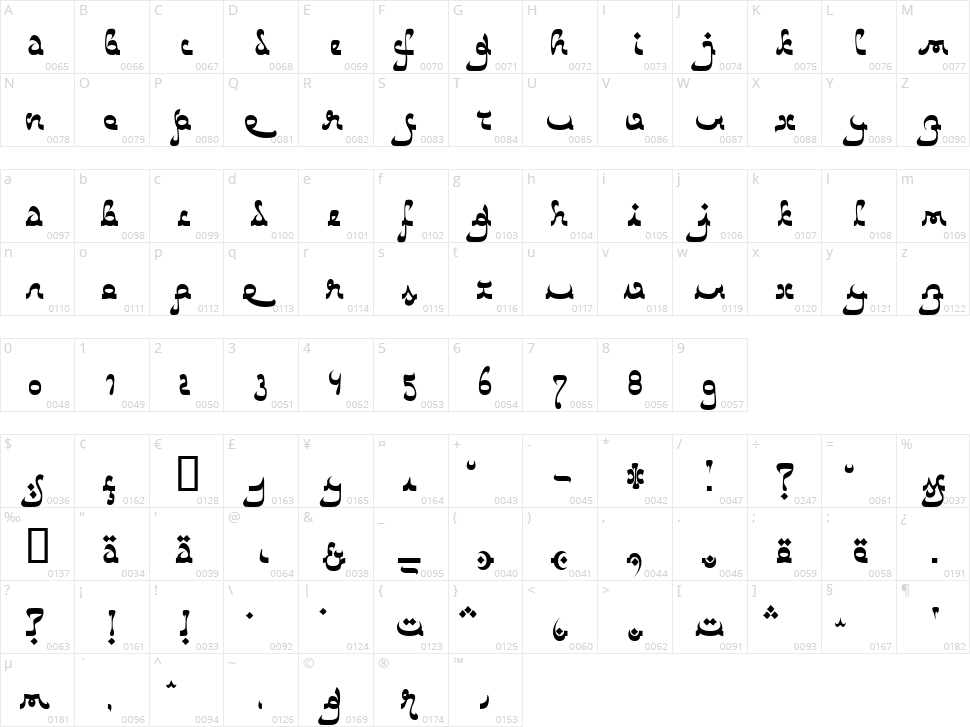
Catharsis Bedouin
This particular font is more complex to use than my usual ones.
Every letter has an initial, medial and final form so as to allow
fluent words with nice beginnings and ends. Some letters have even
more forms for special situations. Finally, there are a bunch of
accents and word primers/terminators for decoration.
IF YOU WANT TO KEEP IT SIMPLE, you can restrict yourself to
initial (uppercase) and medial (lowercase) letters, using the
handy terminators (on the grave accent key, ie the grave accent
and ASCII tilde characters) to cap off any trailing connecting
base line. This should be easy enough to do even on a PC.
Special characters inventory
****************************
(i)=initial, (m)=medial, (f)=final; S=shift, A=alt
Bedouin Character Mac Keyboard Correspondent Character
=================================================================
Bound exclamation mark S 1 !
Free exclamation mark A 1 inverse !
Bound question mark S / ?
Free question mark A / divide
Bound comma (f) , ,
Bound period (f) . .
Bound comma (i) S , <
Bound period (i) S . >
Bound inv. period (i) A , less or equal
Bound inv. period (f) A . greater or equal
Free comma S A , macron
Free period S A . breve
Free colon S A ; U acute
Bound apostrophe / /
Bound space A
S A / inverse ?
Free hyphen - -
Bound hyphen A - endash
Bound underscore S - underscore
Bound ornament S A - emdash
Slash S A 1 fraction
Asterisk S 8 *
Terminator (i) ` `
Terminator (f) S ` ascii tilde
Crescent (i) S 9 (
Crescent (f) S 0 )
Scimitar (i) A 9 ord. feminine
Scimitar (f) A 0 ord. masculine
Inv. scimitar (i) S A 9 period centered
Inv. scimitar (f) S A 0 single quote base
Apostrophe (i) A 7 paragraph
S A q OE ligature
Apostrophe (f) S A 7 double dagger
S A a A ring
Dot accent, e-sized \ \
Dot accent, a-sized S \ bar
Dot accent, u-sized A \ guillemet left
Dot accent, sub S A \ guillemet right
Triple accent, e-sized ] ]
Triple accent, a-sized S ] brace right
Triple accent, u-sized A ] quote left
Triple accent, sub S A ] quote right
Breve accent, e-sized = =
Breve accent, a-sized S = +
Breve accent, u-sized A = not equal
Breve accent, sub S A = plus/minus
Crown accent, e-sized S A 6 fl ligature
Crown accent, a-sized S 6 ASCII circumflex
Crown accent, u-sized A 6 section
Candle accent, u-sized S A 5 fl ligature
Long s (m) S A s I acute
Ss ligature (m) S 5 %
Ss ligature (f) A 5 infinity
Tt ligature (m) S A t caron
F ligature (m) S A f I dieresis
L ligature (m) S A l O grave
C cedille (m) A 4 cent
C cedille (i) S A 4 single guillemet right
Solitary a S A ' AE ligature
Solitary i S A [ double quote right
Solitary o A 8 bullet
Solitary u S A 8 degree
Dotless i (i) S 2 @
Dotless i (m) S A 2 currency
Dotless i (f) A 2 trademark
Dotless j (i) S 3 #
Dotless j (m) S A 3 single guillemet left
Dotless j (f) A 3 sterling
Triple dot M (m) S A m A circumflex